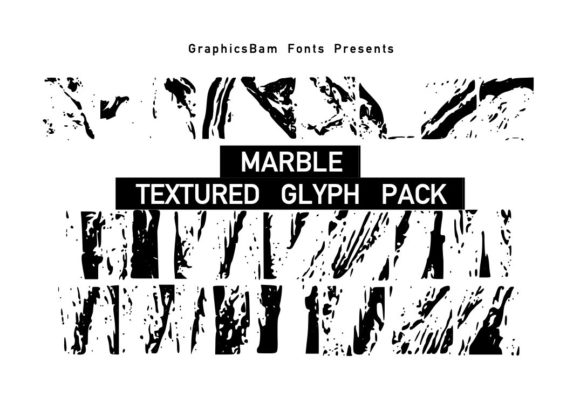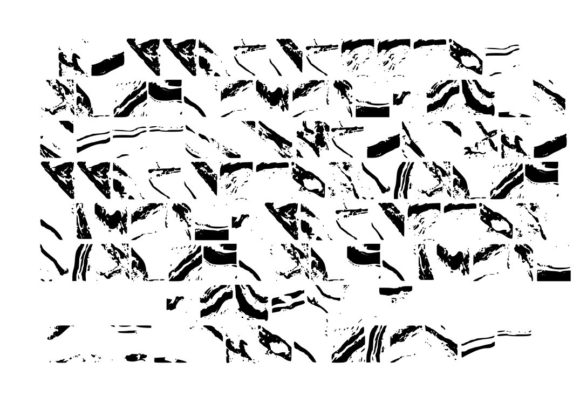
ABOUT MARBLE GLYPH FONT
“Marble Glyph” is an extensive collection of glyphs that showcases a variety of marble pattern textures. With its diverse range of designs, this pack is an excellent choice for any project that requires a touch of natural beauty and elegance.
Whether you’re working on graphic design projects, crafting, or any creative endeavor that calls for the incorporation of marble textures, “Marble Glyph” provides a wide selection of options to choose from. From classic white marble to vibrant and colorful variations, this pack allows you to explore different textures and create captivating designs.
The intricate details and organic patterns found in these marble glyphs can add a sense of sophistication and refinement to your work. Whether you’re designing invitations, stationery, packaging, or any other project that demands a natural aesthetic, “Marble Glyph” is a valuable resource.
Unlock the potential of this extensive pack and let the beauty of marble patterns enhance your designs. Incorporate these glyphs into your projects and enjoy the timeless elegance they bring.